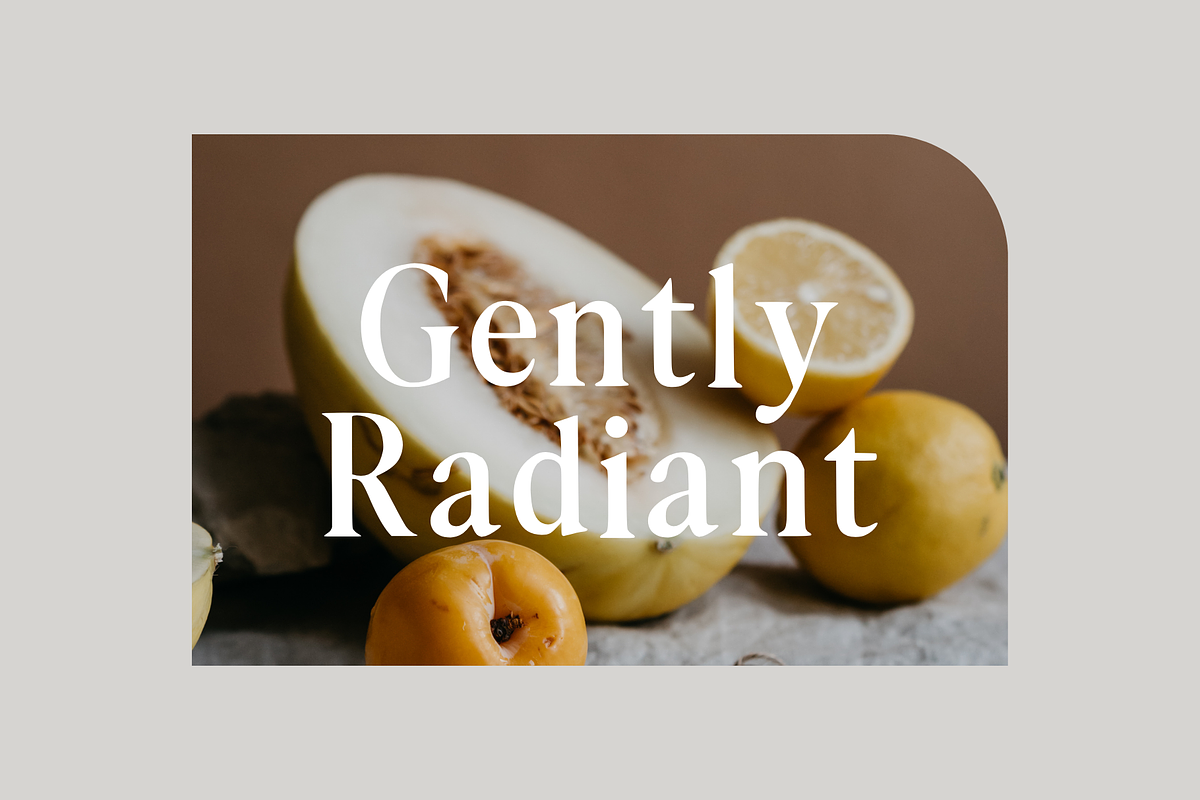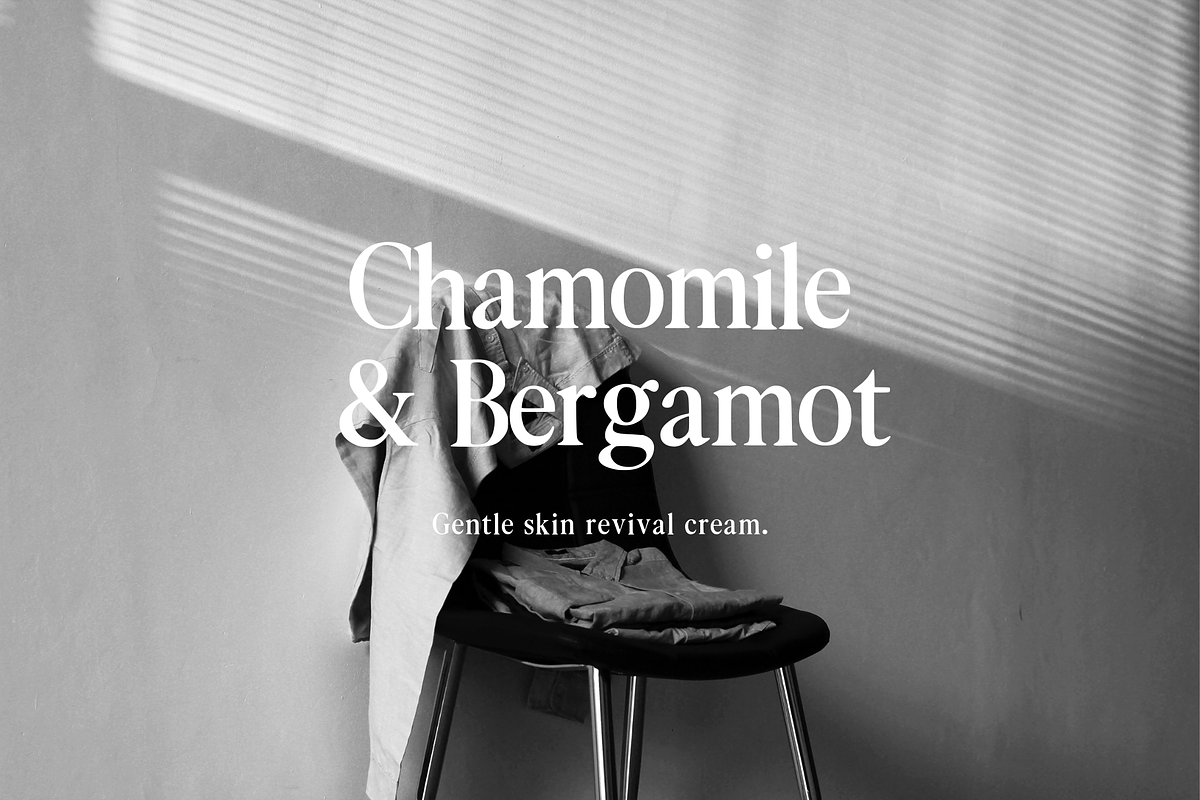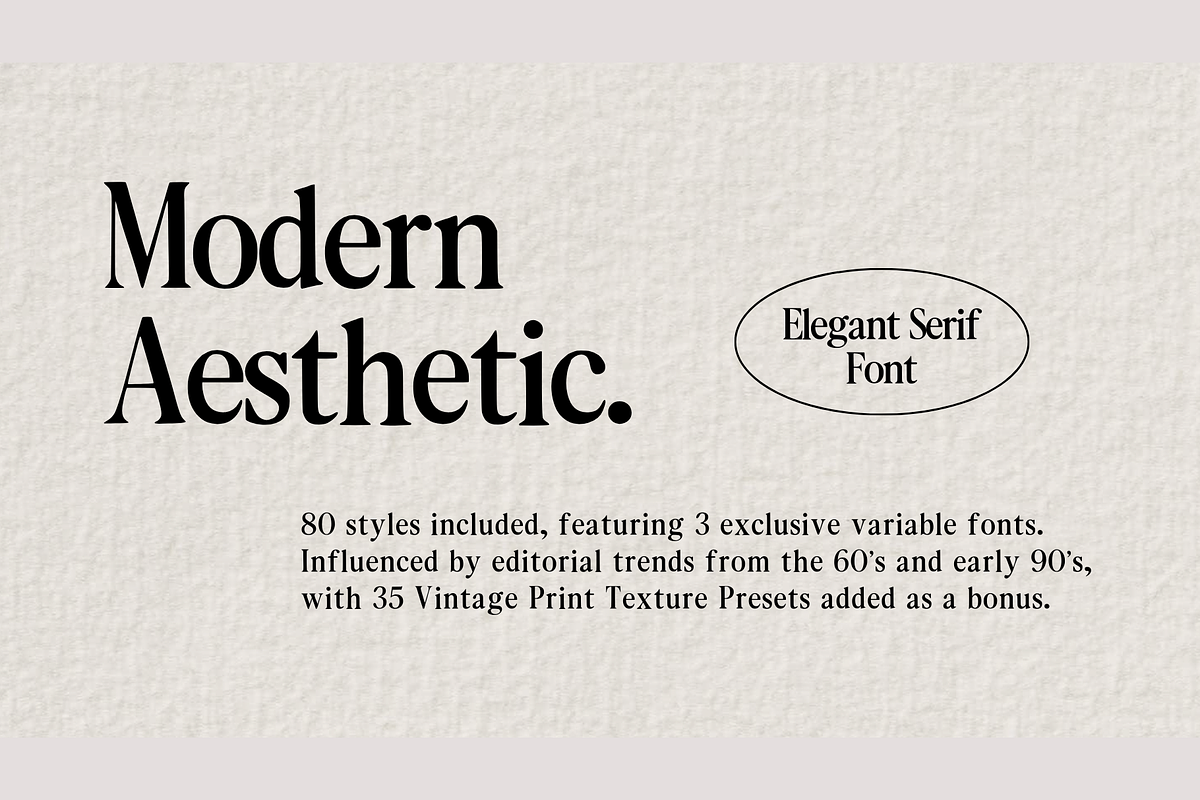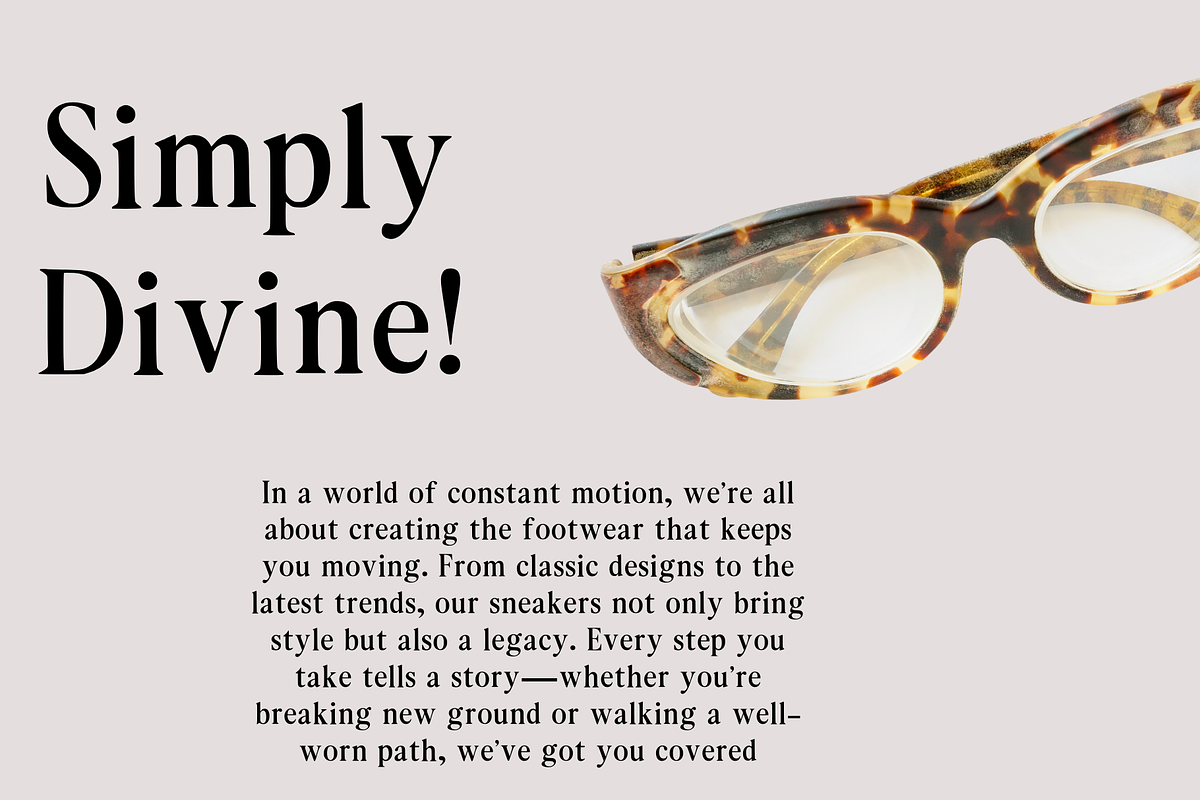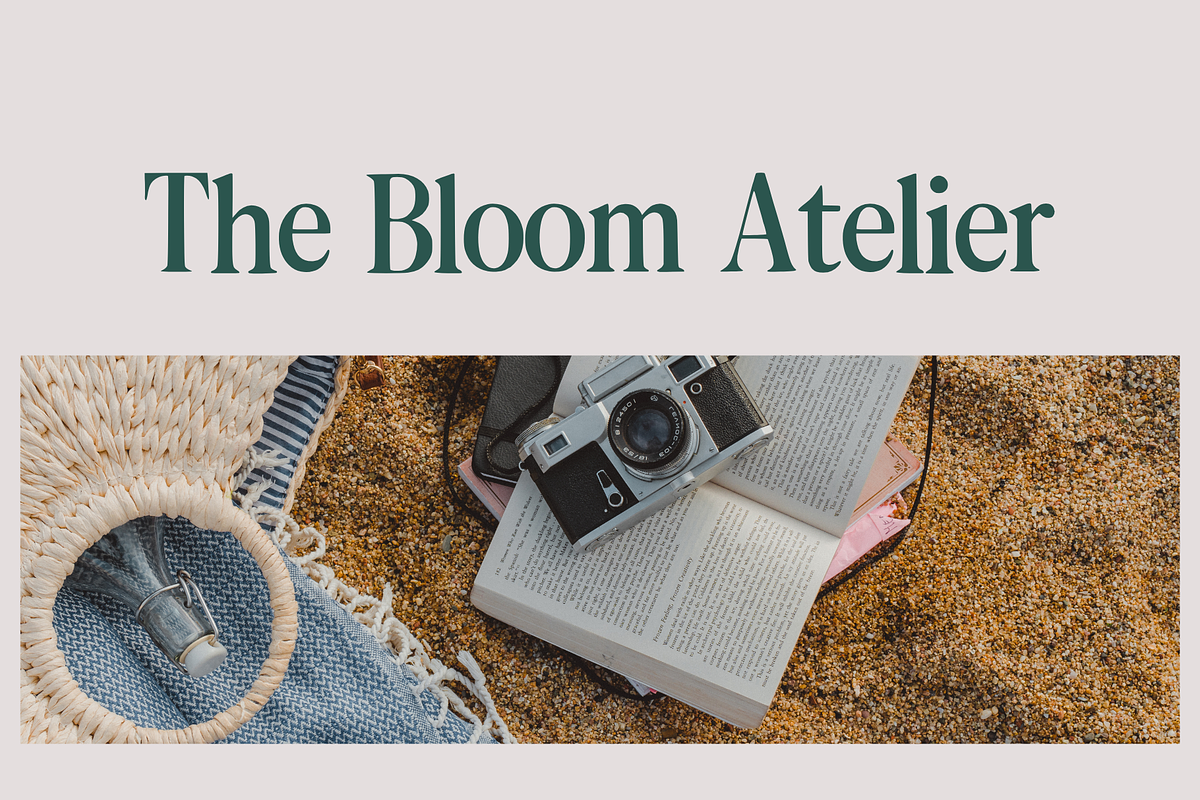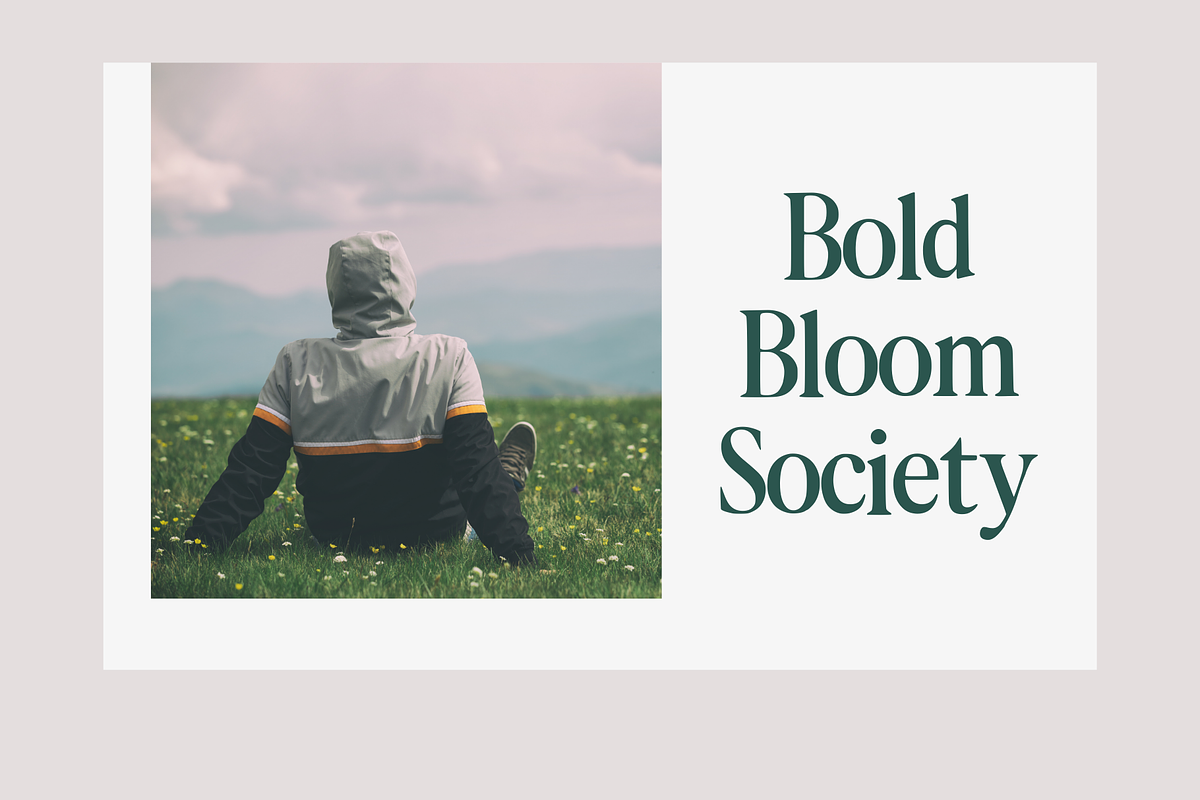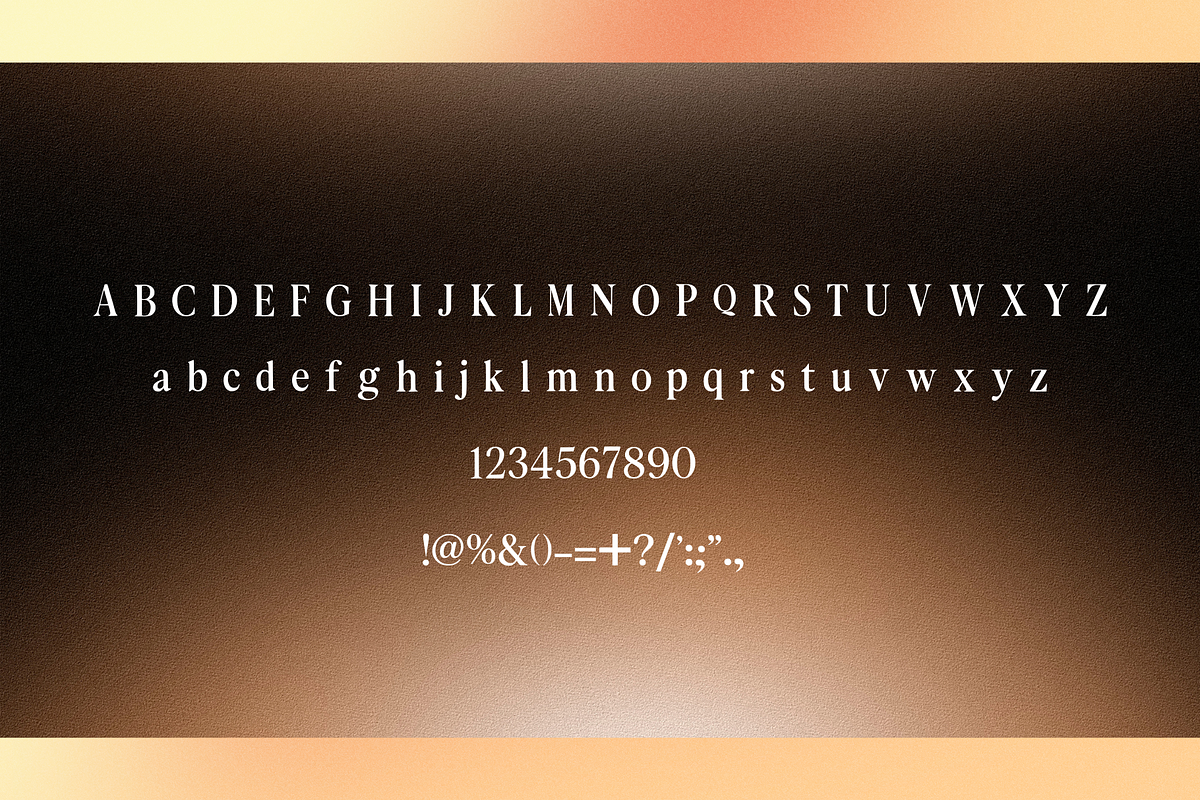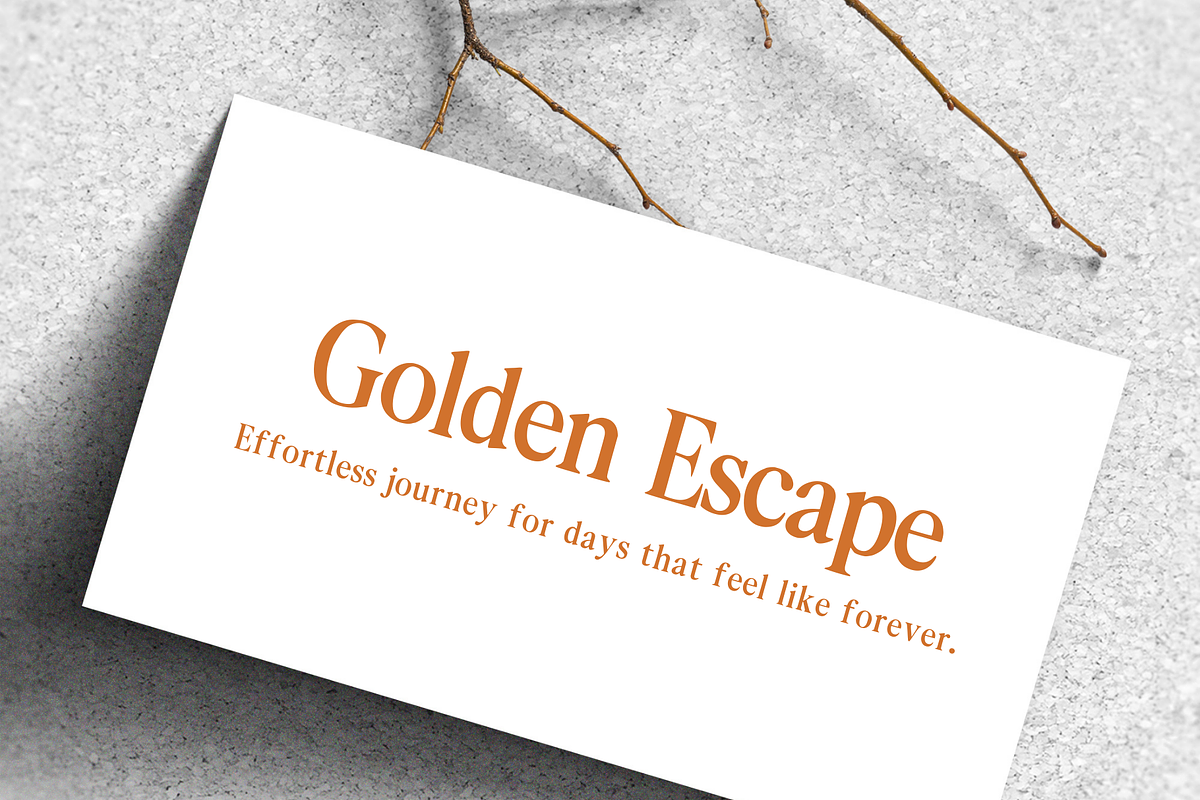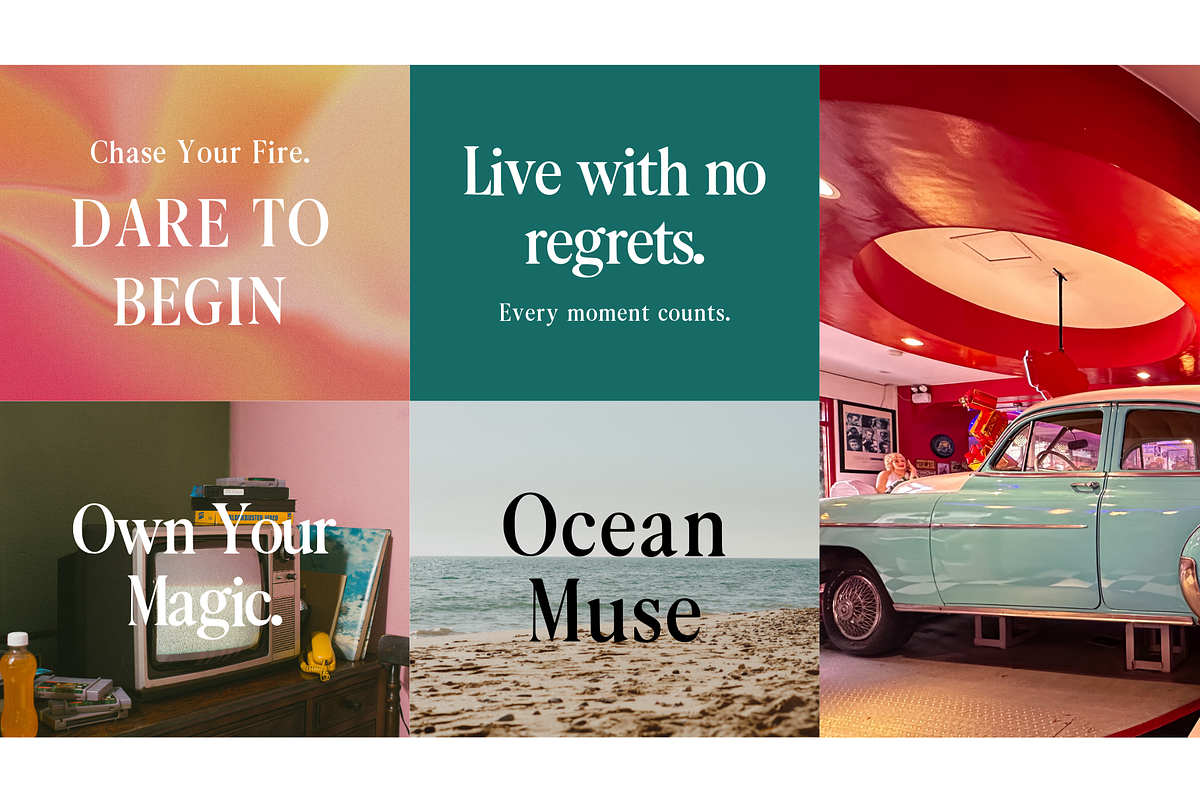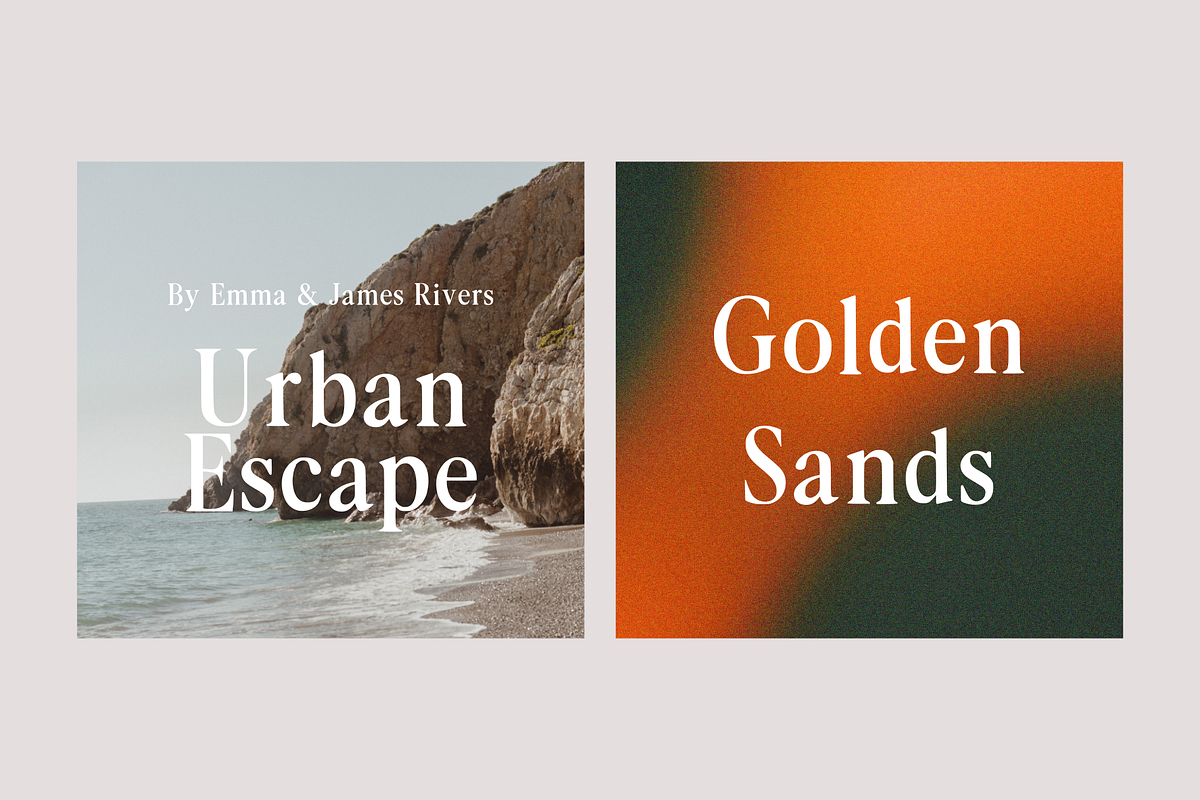
Seravelle Elegant Serif
Seravelle Elegant Serif Font is a refined, timeless typeface crafted for sophistication. With its graceful letterforms, it’s perfect for branding, editorial layouts, and luxury design projects. This font exudes elegance and versatility, making it ideal for high-end logos, magazines, and sophisticated print media. Its smooth curves and balanced structure offer a modern yet classic appeal, suitable for designers seeking a polished aesthetic. Seravelle enhances visual storytelling with its luxurious and adaptable design across various creative applications